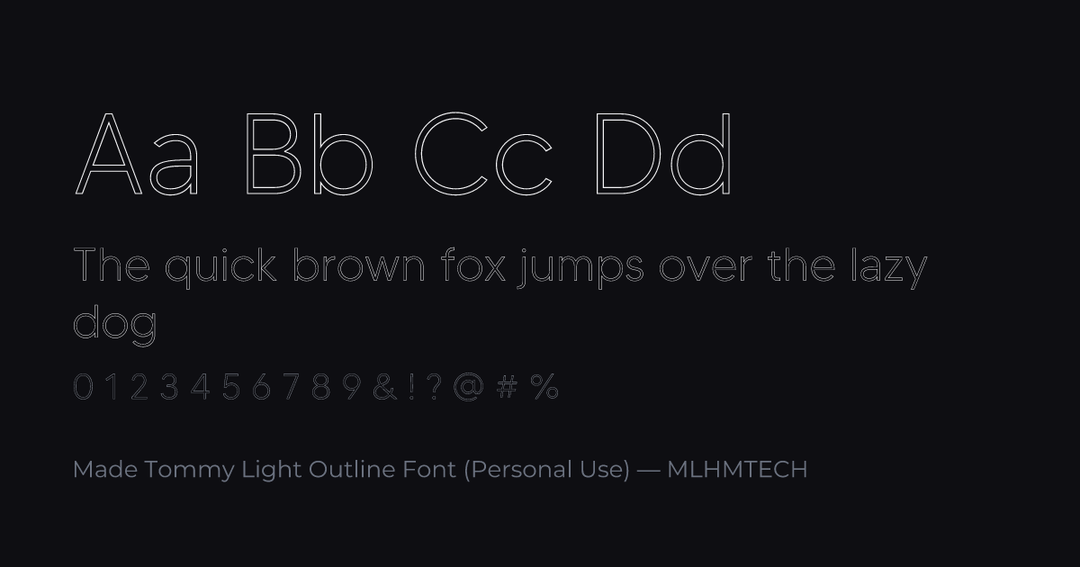
Made Tommy Light Outline Font (Personal Use)
A clean, modern outline font with a light weight, ideal for elegant titles and branding. Perfect for personal creative projects.
Made Tommy Light Outline is a stylish display font featuring a delicate outline style. Its clean lines and modern proportions make it versatile for a variety of design applications, from logos and headings to invitations and social media graphics.
Add a touch of sophistication to your projects with this unique outline typeface. It pairs well with bold sans-serifs for contrast and works beautifully in large sizes.